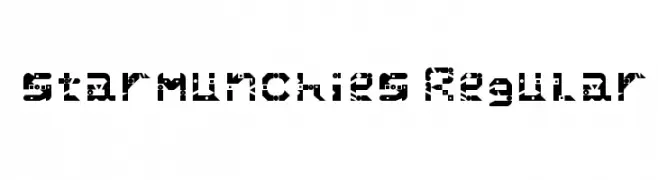
A geometric, pixelated font with a retro digital aesthetic.
A bold, distressed font with a grunge texture and vintage appeal.
A bold, geometric font with a futuristic and industrial style.